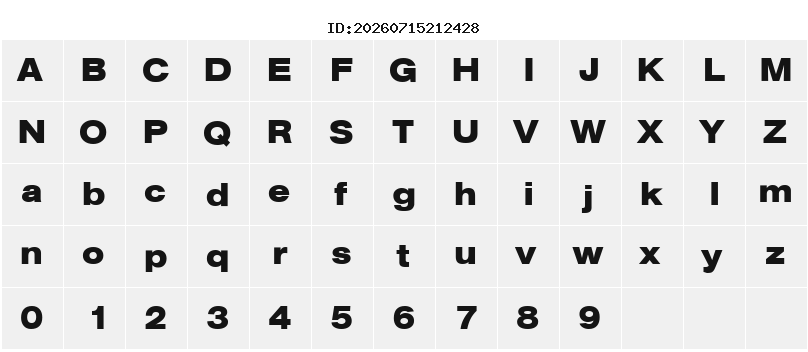
AtkinsExtended Preview
• Font Name: AtkinsExtended
• Full Font Name: AtkinsExtended-Bold
About AtkinsExtended.ttf
AtkinsExtended.ttf is a modern, elegant sans-serif font designed for ultimate readability and visual harmony. Perfect for branding, headlines, web design, and print materials.